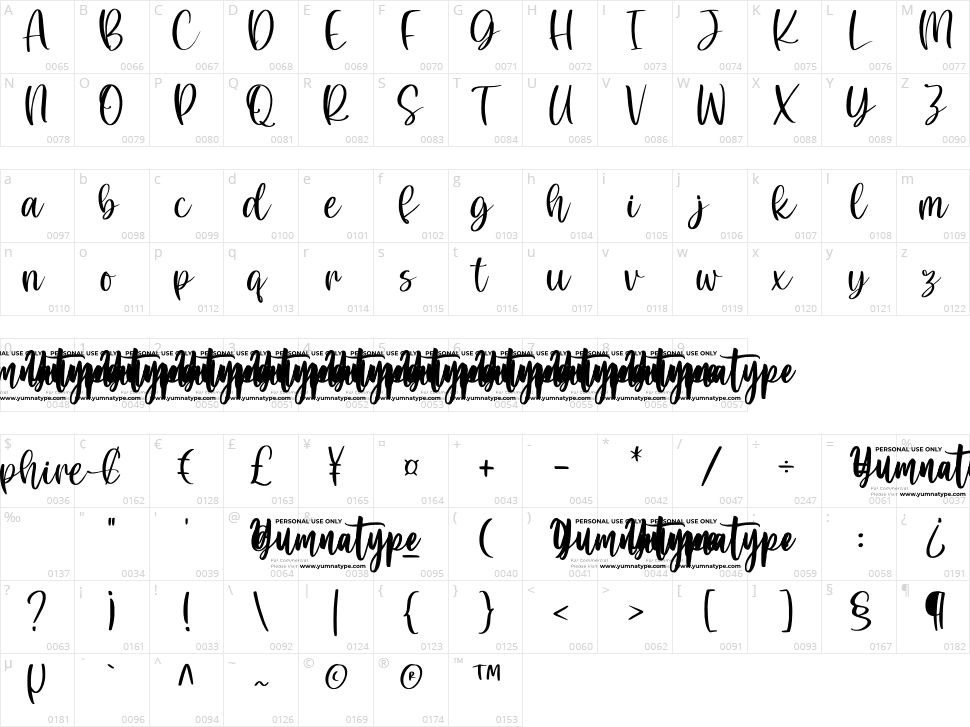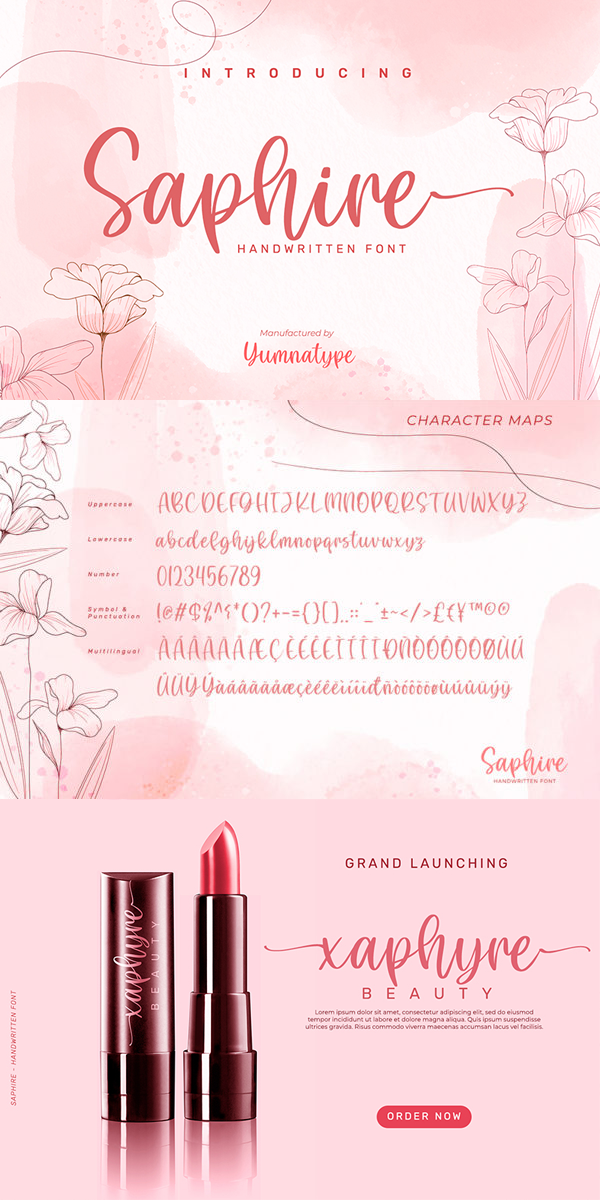
Saphire is a elegant handwritten font with a natural and unique design will make your project more
beautiful. The font is suitable for your branding project, printing, logos dan wedding.